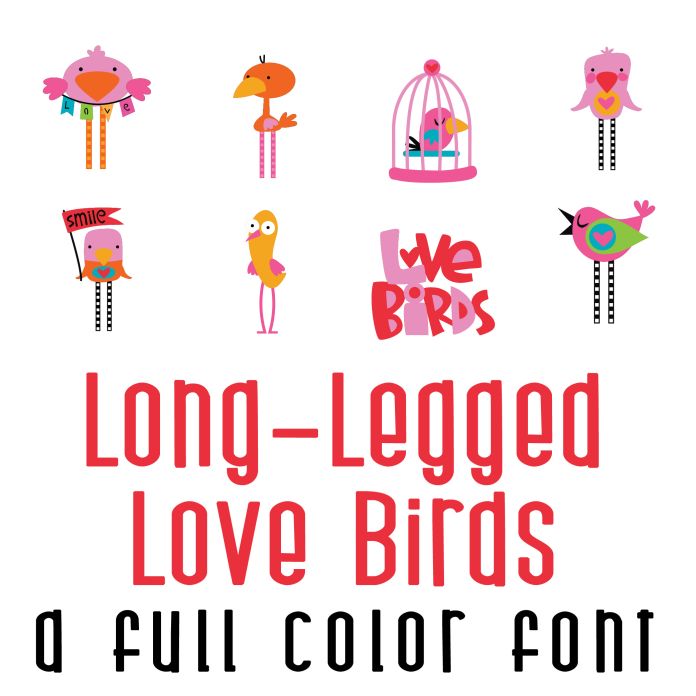
This fun full color font features 26 adorable long-legged love birds and love imagery. Perfect for classrooms, teachers, gifts, decor, scrap book pages, planner stickers and more!